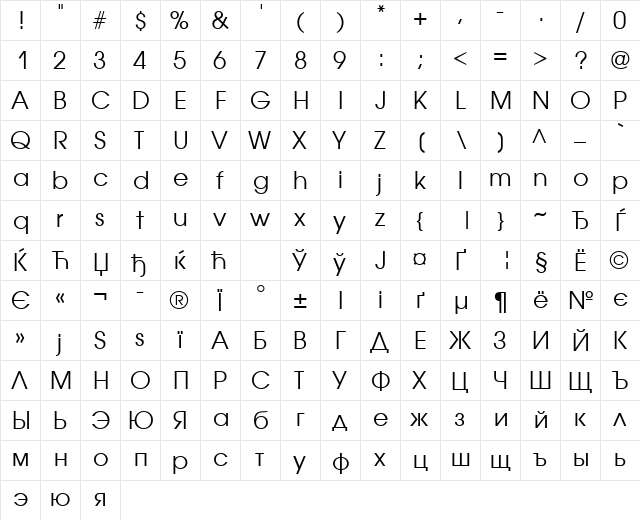
AvantGardeGothicCTT Regular
Design Context for AvantGardeGothicCTT Typeface
AvantGardeGothicCTT takes a clean, functional approach — its unadorned letterforms prioritise legibility and work reliably across screen and print environments.
Font Pairing: Works well alongside a characterful serif or display font that can carry the expressive load while AvantGardeGothicCTT handles the functional copy.
Pro Tip: Use AvantGardeGothicCTT for UI labels, navigation, and short-form body copy where clean legibility is the priority.